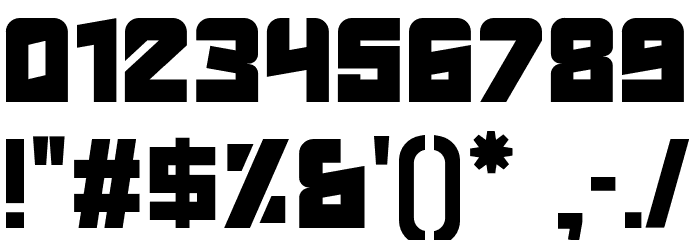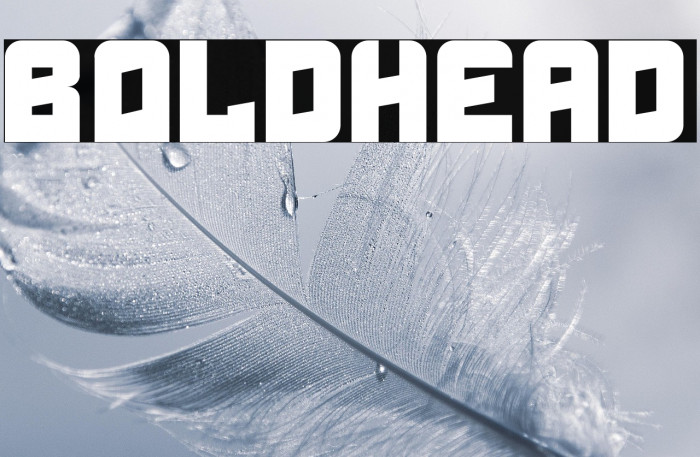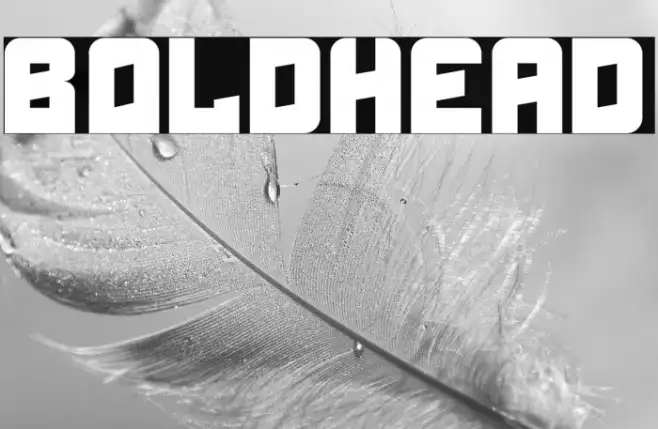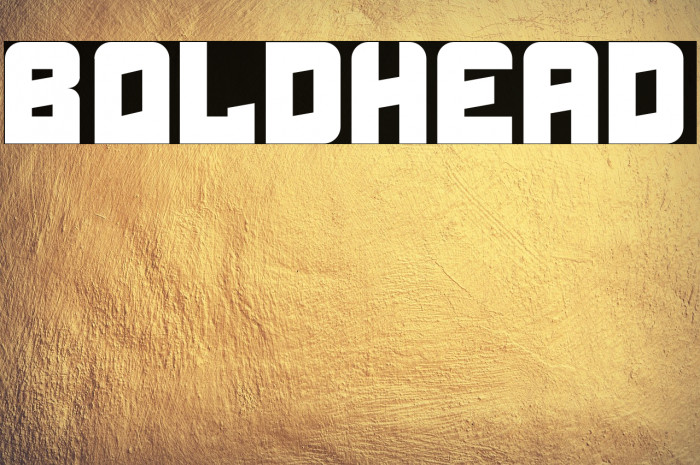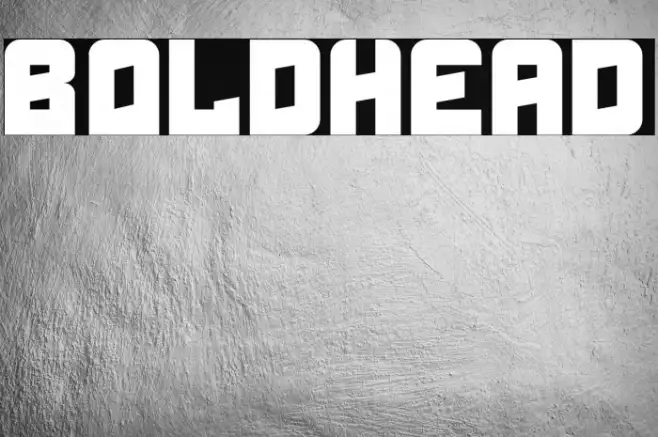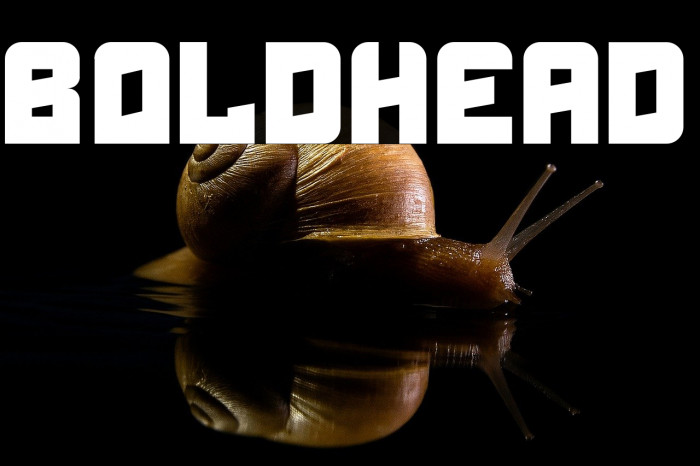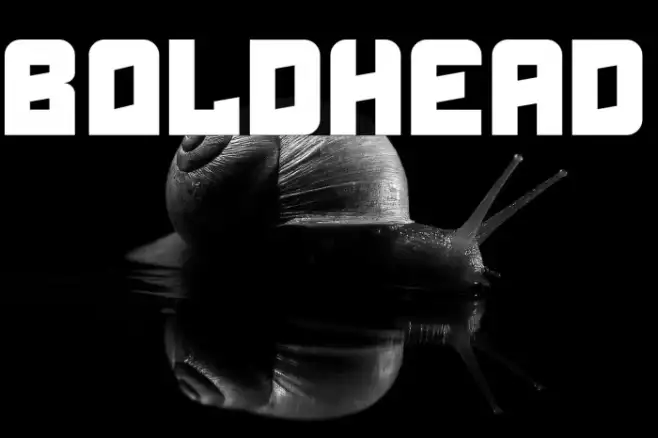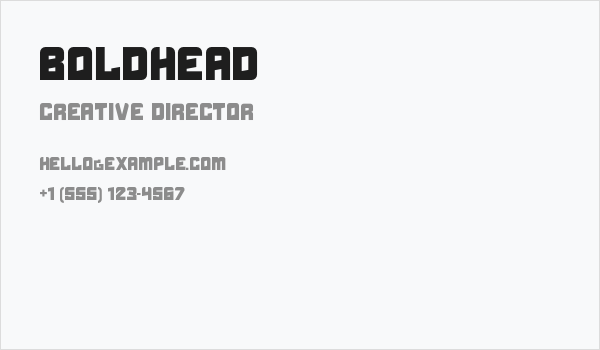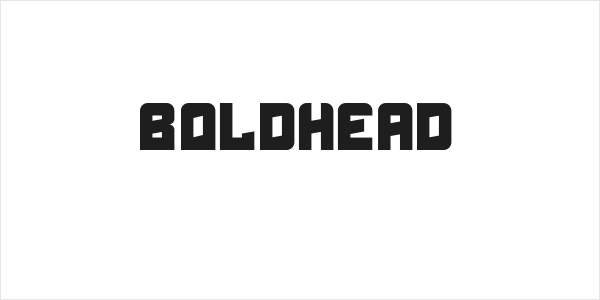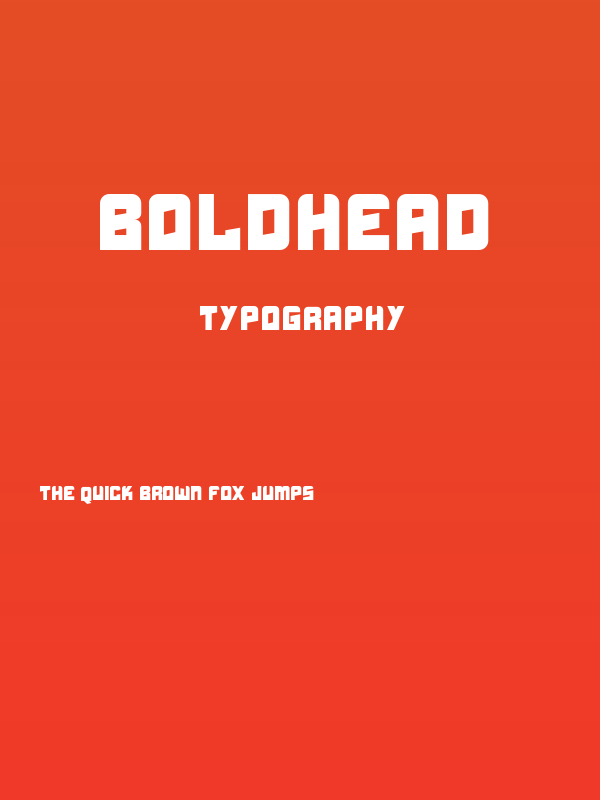
Boldhead Font
Boldhead Description
This font features a bold and impactful design with thick, blocky characters that convey strength and modernity. The uppercase letters are uniform in height, creating a cohesive and structured appearance. The numbers and special characters maintain the same boldness, ensuring consistency across all elements. The font's geometric shapes and sharp angles give it a futuristic and assertive feel, making it ideal for attention-grabbing headlines or branding that requires a strong visual presence.
| Proposed Projects | Ideal for branding, headlines, posters, and any design requiring a strong, impactful visual element. |